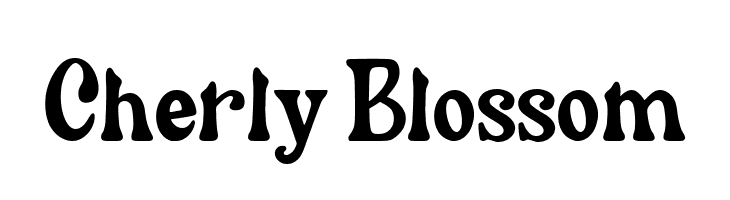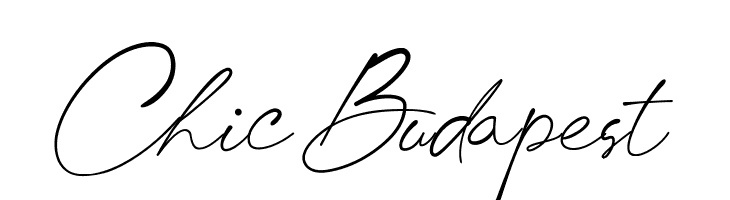
A dynamic calligraphic font with elegant, flowing strokes and medium contrast.
A modern, geometric sans-serif font with a sleek and uniform appearance.
A playful, rounded font with bold, smooth curves and a slightly slanted style.
A playful, bold handwritten font with smooth curves and dynamic slant.
A delicate, flowing script font with a handwritten style.
A bold, dynamic script font with modern flair and expressive strokes.
A dynamic and expressive handwritten font with fluid strokes and a natural flow.
An elegant, flowing script font with dynamic strokes and artistic flair.
A sophisticated handwritten font with elegant, flowing lines.
A graceful monoline script font with consistent stroke width and elegant curves.
A bold, decorative serif font with a vintage and regal style.
A bold, playful script font with a whimsical, hand-drawn style.
A bold, brush-style font with dynamic strokes and a handwritten feel.
A bold, angular font with a medieval, knightly aesthetic.
A cursive, handwritten font with elegant, flowing characters.
A bold, expressive handwritten font with fluid, cursive strokes.
A decorative serif font with elegant curves and bold serifs, ideal for sophisticated designs.
An elegant, cursive font with fluid strokes and a sophisticated style.
An elegant, flowing script font with graceful curves and a sophisticated style.
A graceful, flowing script font with a sophisticated, handwritten style.
A dynamic, cursive handwritten font with a bold and fluid style.
A bold, elegant script font with flowing, cursive letterforms and high contrast.
A playful and elegant handwritten font with fluid strokes.
A playful, handwritten font with elongated, irregular characters.
A playful, decorative font with floral cutouts and bold, rounded characters.
An elegant, flowing script font with a handwritten appearance.
A dynamic, flowing handwritten font with elegant, slightly irregular strokes.
A playful, bold, and outlined font with a modern and fun style.
A bold, flowing script font with elegant curves and ornate details.
A dynamic script font with fluid, interconnected strokes and a calligraphic style.
A graceful and modern script font with elegant curves and ornate details.
A bold, geometric sans-serif font with a modern and clean aesthetic.
A modern, light, italic sans-serif font with clean lines and normal spacing.
An ornate and decorative font with intricate swirls and flourishes.